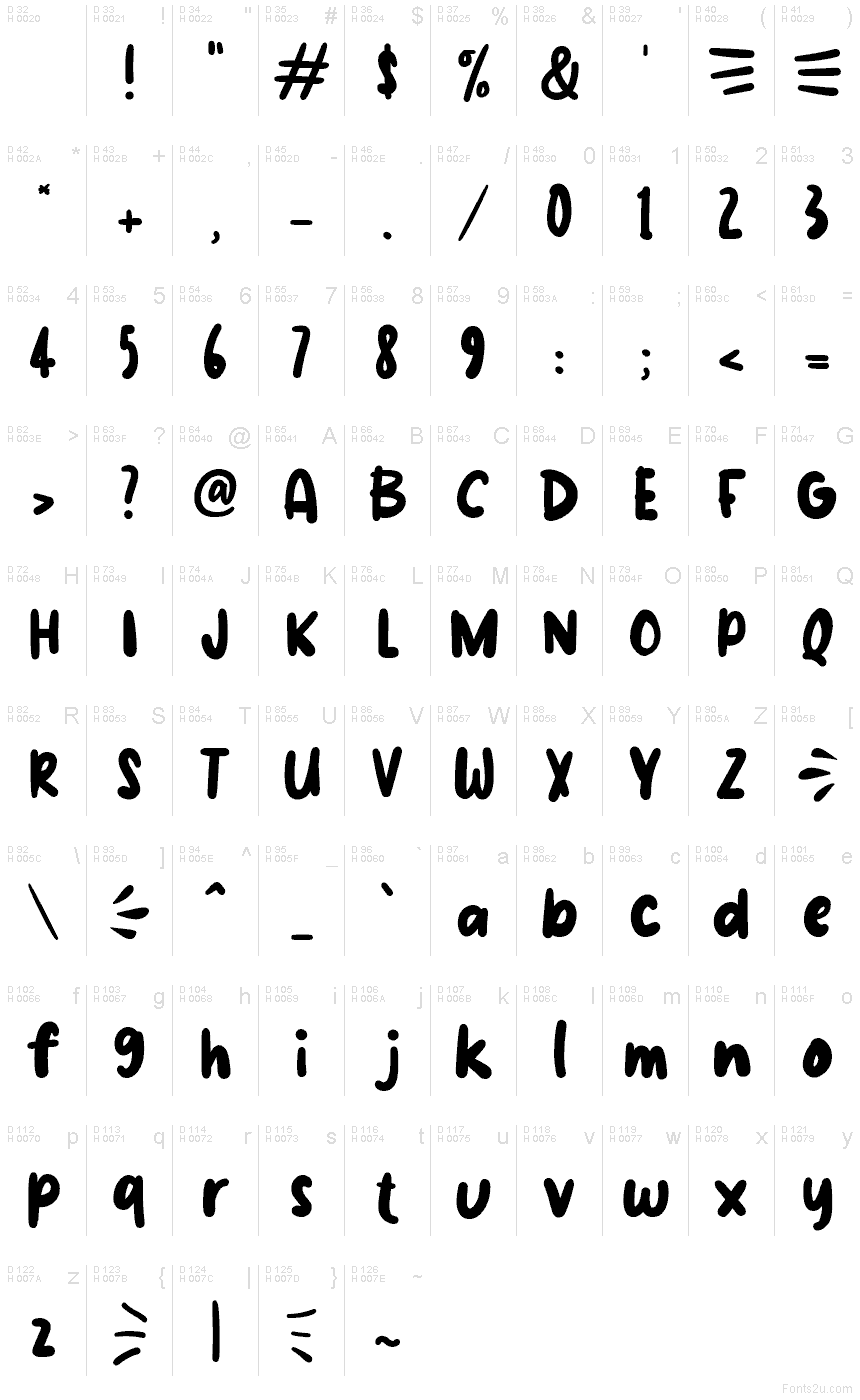
Love Days
Love Days font by Dm Letter Studio and Dimas Prasetyo takes the concept of love to a whole different level with bold brush strokes written in Arabic numerals. A simple way to express romance in a typography viewer, this free brush font combines your everyday numbers and an artistic hand-written style.
A romantic touch can be added to greeting cards, novels dedicated to relationships, or even blogs that tackle contemporary topics like zodiac sign compatibility. You’ll finally be able to count all the ways you love someone on Valentine’s Day greeting cards and surprise invitations while keeping it classy in red!